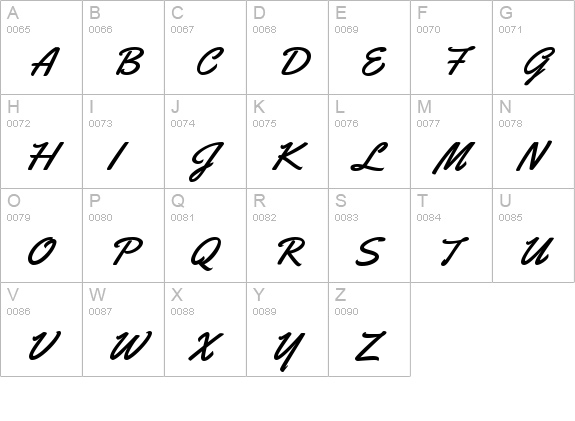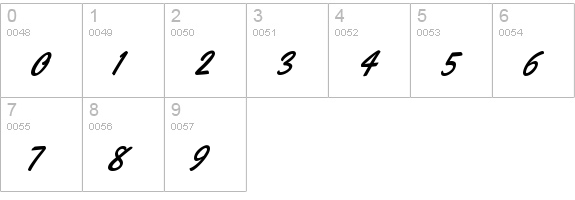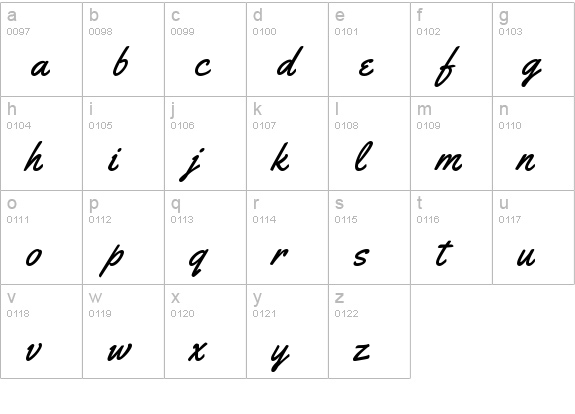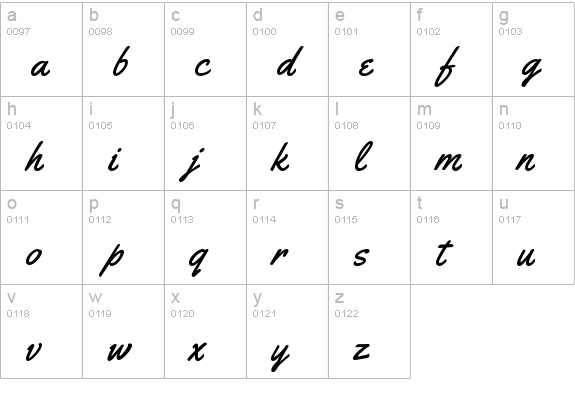
Yellowtail Font Details
Yellowtail font is a stunning display typeface that exudes a sense of elegance and sophistication. With its bold and curvaceous letterforms, this font captures attention and adds a touch of personality to any design project. With its free-spirited charm, Yellowtail font is perfect for a wide range of creative applications. Whether you need to create eye-catching headlines, stylish logos, or captivating posters, this font is sure to make a lasting impression. One of the best things about Yellowtail font is that it is freely available to download at FontsMarket.com. This means that you can easily access this amazing font without any hassle or cost. Whether you are a professional designer or a hobbyist, this font provides endless possibilities for unleashing your creativity. The versatility of Yellowtail font is evident in its ability to adapt to various design styles and themes. Its smooth lines and unique letterforms give it a distinct and memorable look that stands out from the crowd. Whether you want to create a vintage-inspired design or a modern and sleek aesthetic, Yellowtail font can effortlessly bring your vision to life. The attention to detail in Yellowtail font is truly remarkable. Each letter is meticulously crafted to ensure a harmonious flow and balance. The curves and strokes are perfectly proportioned, creating a visually pleasing experience for the reader. Yellowtail font is a true gem in the world of typography. Its free availability at FontsMarket.com allows designers and enthusiasts alike to explore and experiment with this beautiful font. With its captivating design and wide range of applications, Yellowtail font is a must-have in any designer's toolkit. So go ahead, download Yellowtail font today and let your creativity soar to new heights.